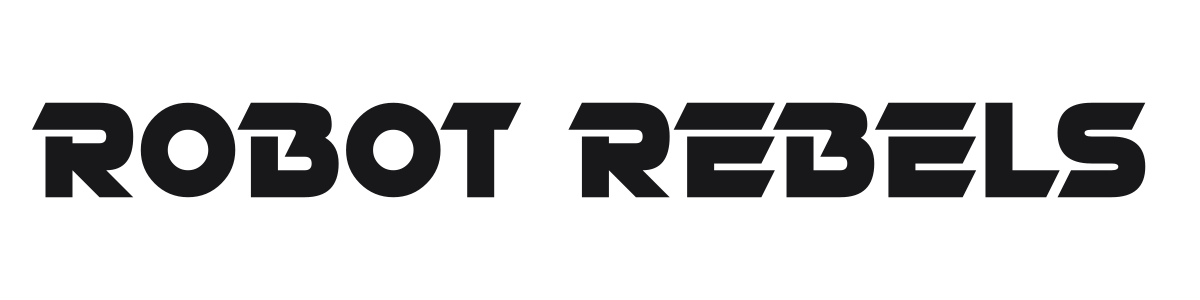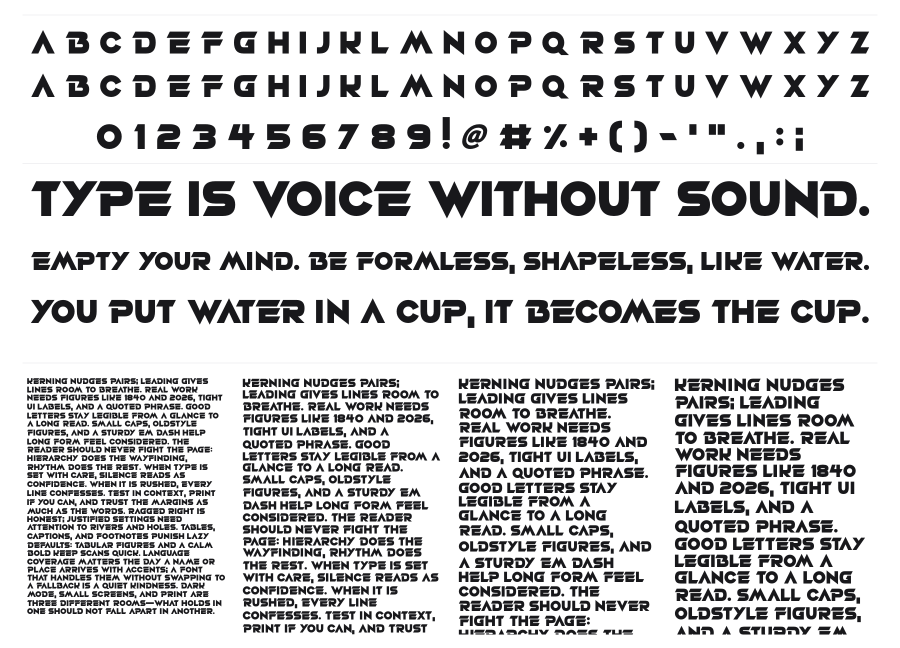
Robot Rebels
Robot Rebels is a bold techno sans built around sharp diagonal cuts that slice through otherwise blocky, geometric characters. The angular notches give each letter a machined, robotic feel without becoming illegible. Strong in game titles, sci-fi branding, and anywhere that needs a heavy futuristic punch.